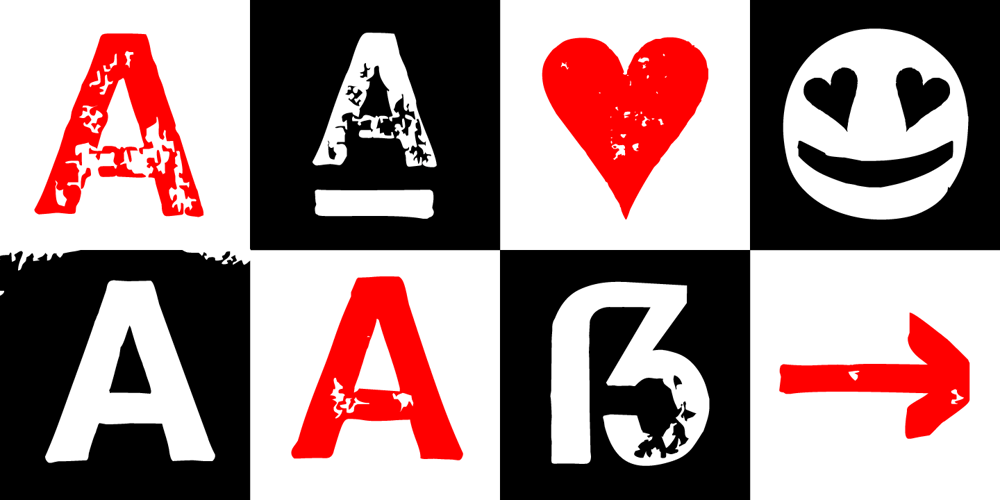
Hand Stamp Swiss Rough Sans Font Family was designed by Manuel Viergutz and published by TypoGraphicDesign. Hand Stamp Swiss Rough Sans contains 6 styles and family package options. The typeface Hand Stamp Swiss Rough Sans is designed for the Typo Graphic Design font foundry in 2015 by Manuel Viergutz. A display sans serif type for headlines with an authentic used stamped style by hand. It started analogous with 42 stamps. Vintage look plus state-of-the-art OpenType-features like contextual alternates (calt) for more hand-stamped feeling with the automatic generated stylisitc set loop. Decorative ligatures like CT, LL, LI, LU, MM, OO, TH, TT, TU, UH and Versal Eszett (German Capital Sharp S) type the word LOVE for ❤ and the word SMILE for ☺. Character Set: Latin Extended (Adobe Latin 3). 1086 glyphs with 4× A–Z, 4× a–z, 4× 0–9 and 100+ extra icons like arrows, dingbats, symbols, geomatric shapes, catchwords and many alternative letters. Have fun with this font & use the DEMO-FONT (with reduced glyph-set) FOR FREE! Example of use from the Font The font works best for headline size. Logo, Poster, Editorial Design (Magazine or Fanzine), Flyer, Music Covers or Webdesign (Headline Webfont for your website), Webbanner, Animations … ■ Font Name: Hand Stamp Swiss Rough Sans ■ Font Weights: Regular + Mix + Icons + DEMO (with reduced glyph-set) ■ Font Category: Display & Decorative ■ Font Format: .otf (OpenType Font for Mac + Win) + .ttf (TrueType Font) ■ Glyph Set: 1086 glyphs ■ Language Support: 28+ for Latin Extended (Adobe Latin 3). Afrikaans, Albanian, Catalan, Croatian, Czech, Danish, Dutch, English, Estonian, Finnish, French, German, Hungarian, Icelandic, Italian, Latvian, Lithuanian, Maltese, Norwegian, Polish, Portugese, Romanian, Slovak, Slovenian, Spanisch, Swedish, Turkish, Zulu ■ Specials: 100+ decorative extras like icons for arrows, dingbats, emojis, symbols, geometric shapes, catchwords + German Capital Eszett. Open Type Features: Kerning (kern), Access All Alternates (aalt), Stylistic Alternates (salt), Stylistic Set 1 (ss01) … Stylistic Set 6 (ss06), Localized Forms (locl), Subscript (subs) Superscript (sups), Ordinals (ordn), Proportional Figures (pnum), Oldstyle Figures (onum), Lining Figures (lnum), Tabular Figures (tnum), Slashed Zero (zero), Fractions (frac), Denominators (dnom), Numerators (numr), Standard Ligatures (liga), Contextual Alternates (calt) e. g. Stylistic Set-Loop and Decorative Ligatures (dlig) e. g. type the word “LOVE” for ❤ or “SMILE” for ☺ ■ Design Date: 2015 ■ Type Designer: Manuel Viergutz